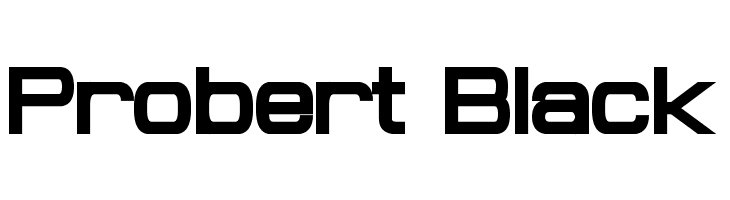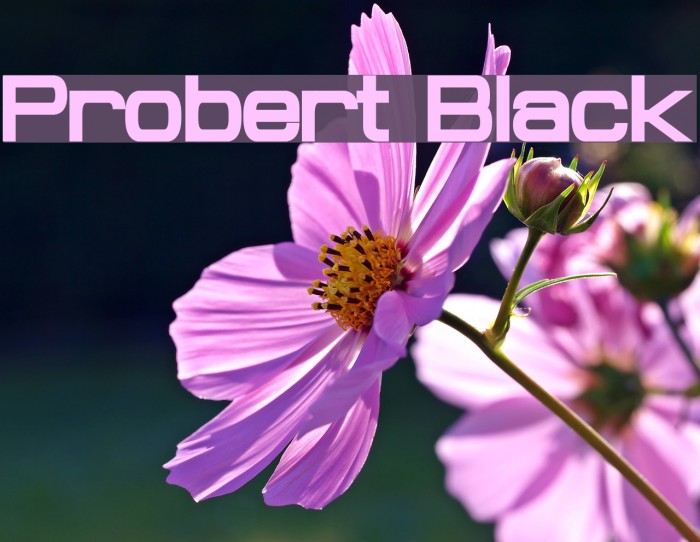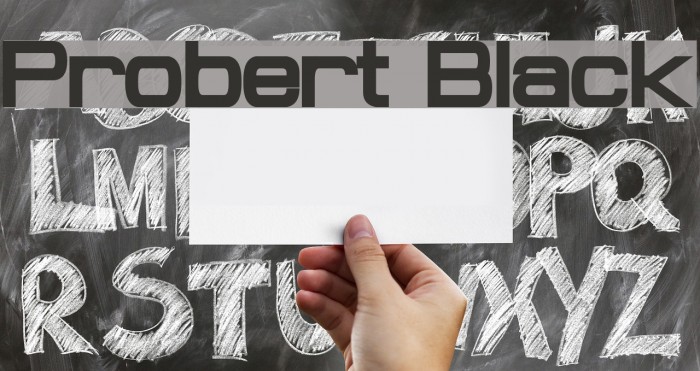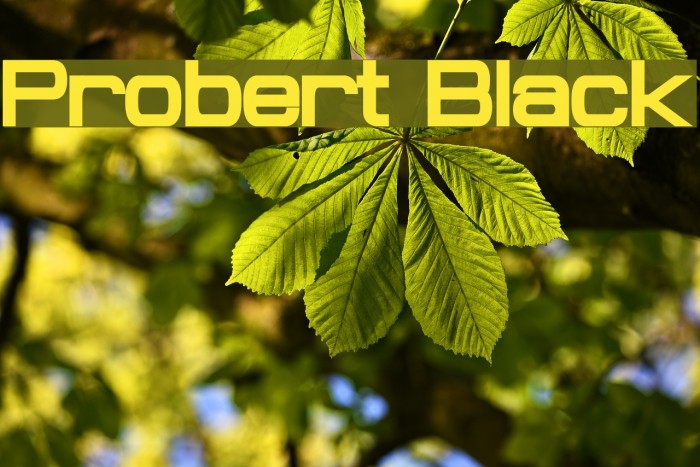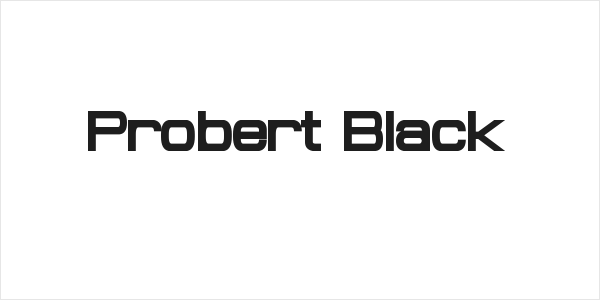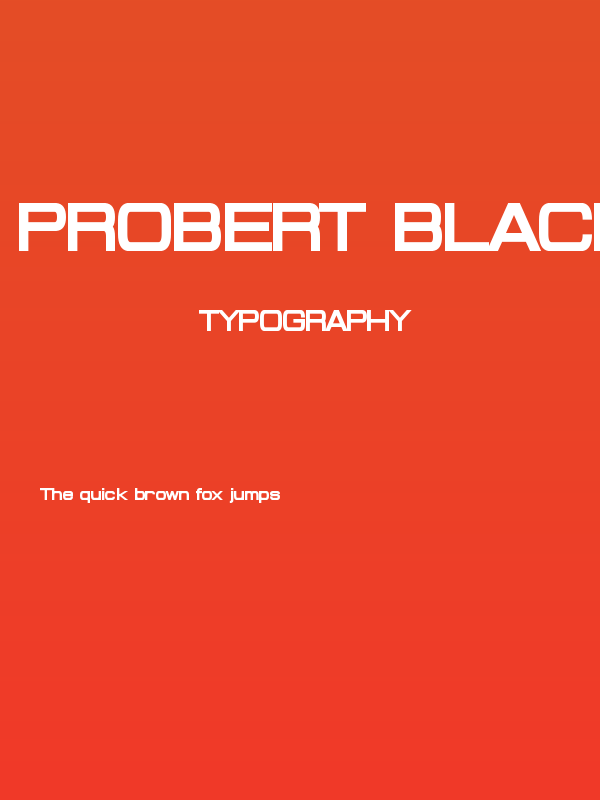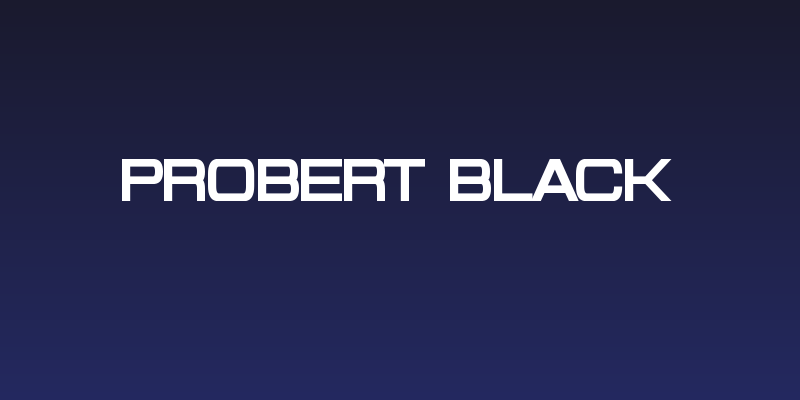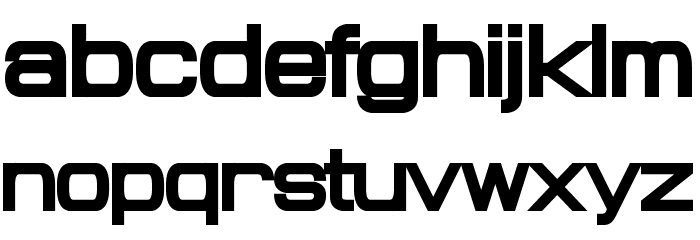
Probert Black Font
Probert Black Description
This font features a bold and modern design with a geometric structure. The characters are wide and have a strong presence, making them ideal for impactful headlines and titles. The uppercase letters are uniform in height, while the lowercase letters maintain a consistent baseline, contributing to a clean and organized appearance. The numbers are equally bold, ensuring readability and consistency across different uses. Special characters are designed to match the overall aesthetic, with a focus on clarity and style. The font's design is versatile, suitable for both digital and print media, and can be used to convey a contemporary and professional look.
| Use Case | Headlines, Logos, Advertising |
| Proposed Projects | This font is perfect for branding projects, advertising campaigns, digital media, and print materials where a strong and modern aesthetic is desired. |